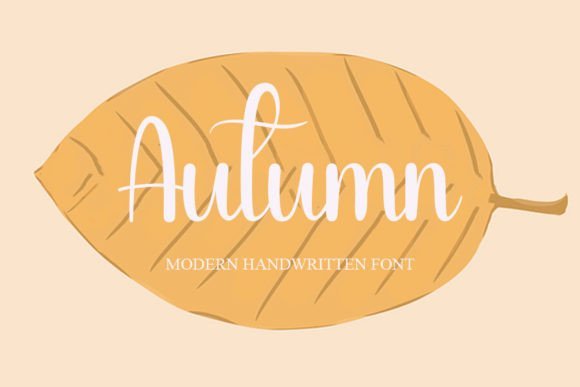
Unlock the Magic of Autumn Font
As a designer, there’s nothing quite like the thrill of brainstorming new ideas and watching a concept come to life. For me, it often starts with a spark of inspiration – a beautiful sunset, a cozy cup of coffee, or a whimsical handwritten note. And that’s exactly where Autumn Font comes in. This sweet and cursive handwritten font is the perfect accompaniment to your next creative project, adding a touch of joy and romance to every design.
Whether you’re working on a branding project, creating wedding invitations, or designing a fashion lookbook, Autumn Font is the perfect choice. Its elegant yet casual vibe makes it versatile enough to fit any design style, and its beauty lies in its simplicity. By incorporating Autumn Font into your designs, you’ll add a personal touch that resonates with your audience and elevates your brand’s visual identity.
Autumn Font Key Features
- Font Family: Autumn is a display font family.
- Size: Each font weight comes in 8 font weights, ranging from Thin to Black.
- Resolution: Optimized for use at high resolutions, making it ideal for digital displays.
- Unique Characteristics: Autumn features a unique blend of organic and geometric elements, creating a visually striking effect.
Designer Review: Autumn Font
At first glance, Autumn Font seems to capture the essence of the season – warm, inviting, and full of character. ✨ The rounded edges and soft lines evoke a sense of coziness, making it perfect for autumn-themed designs, packaging, or even children’s books.
- The font’s versatility shines in its ability to be used for a wide range of typography, from headings to body text.
- It’s easy to read, even in smaller font sizes, which is a major plus for designers.
- The subtle texture and imperfections add a touch of handcrafted charm, giving your designs a unique feel.
However, there are some limitations to consider: ⚠️ The font may not be the best choice for digital interfaces or modern, sleek designs, as its rounded edges can come across as dated. Additionally, the font’s weight may not be consistent across all platforms, which could lead to inconsistencies in design.
Overall, Autumn Font is a great addition to any designer’s toolkit, especially for autumn-themed projects. While it may not be the most versatile font, its unique charm and character make it a standout choice for the right projects. With a little creativity and consideration, Autumn Font can add a warm, inviting touch to your designs.
Autumn Font is ideal for designs related to fall or harvest themes, such as:
– Seasonal greeting cards and invitations
– Fall-themed posters and advertisements
– Autumn-inspired social media graphics and blog posts
– Holiday decorations and party invitations
Tips for Getting the Most Out of Autumn Font
For optimal results, pair Autumn Font with earthy color schemes and natural textures, such as wood grain or leaf patterns. Experiment with font sizes and styles to create visually appealing contrast and emphasis.
Alternatives to Autumn Font for Designers
Fontin is a sans-serif font that shares some similarities with Autumn Font in its rounded and elegant feel. It is suitable for body text and headings in modern designs, especially in digital interfaces. Fontin is more versatile and can be used in a wide range of applications, from advertising to editorial content. Compared to Autumn Font, Fontin has a more neutral and clean aesthetic, making it a great choice for designs that require a subtle yet professional look.
Playfair Display is an elegant and luxurious serif font that can add sophistication to any design. It is ideal for use in headings, titles, and other display text, particularly in luxury brands, fashion, and high-end publications. While Autumn Font has a more rustic and natural feel, Playfair Display is more refined and ornate, making it a great choice for designs that require a touch of elegance and sophistication.